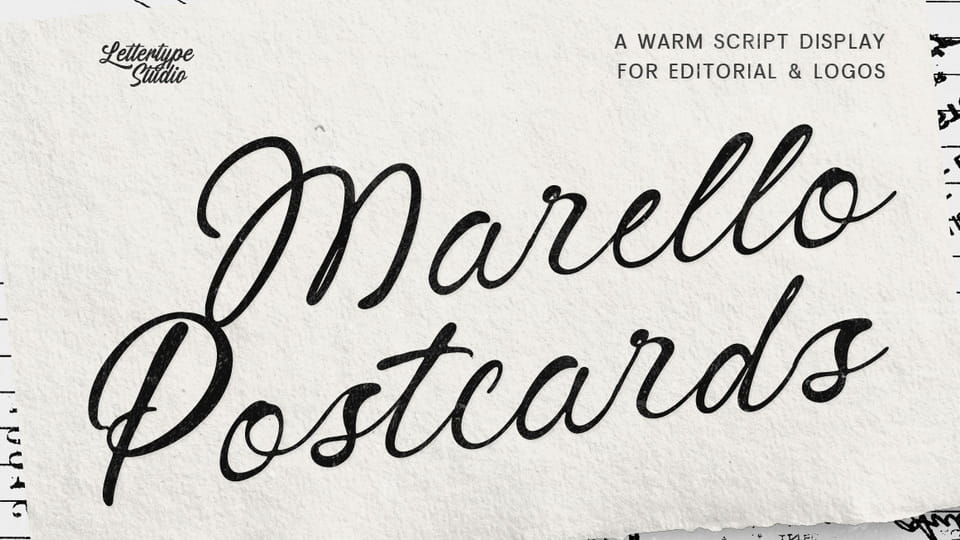
Marello Postcards Font › Fontesk – Download Grátis
Download Marello Postcards font, a handwritten display typeface that captures the warmth of notes, travel memories, and nostalgic storytelling.
Designer: Lettertype Studio